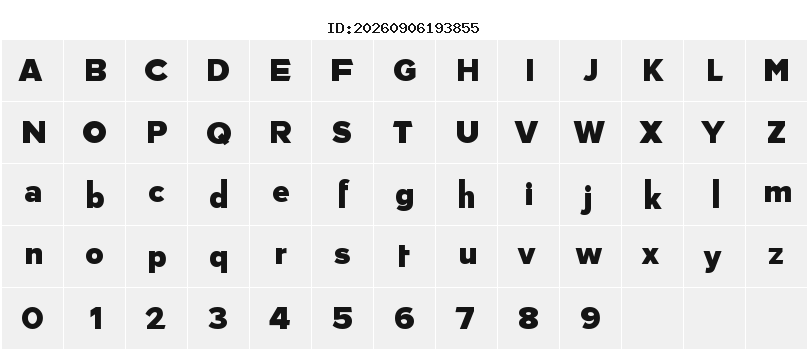
TCF 2009 Preview
• Font Name: TCF 2009
• Designer: Mark Simonson
About TCF 2009.ttf
TCF 2009.ttf is a modern, elegant sans-serif font designed for ultimate readability and visual harmony. Perfect for branding, headlines, web design, and print materials.